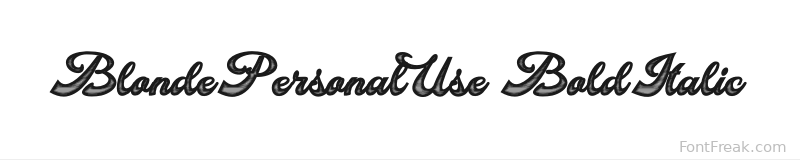
BlondePersonalUse-BoldItalic
The BlondePersonalUse-BoldItalic font by Billy Argel Fonts is a striking decorative typeface that exudes elegance and personality. This script-style font features a bold italic design, characterized by its fluid letterforms and playful strokes. The strokes are thick, providing a noticeable contrast that enhances readability while maintaining an artistic flair. The spacing between the letters is well-balanced, allowing for a harmonious flow that draws attention without overwhelming the viewer.
This font is ideally suited for various creative projects, making it a versatile choice for designers and small business owners alike. It shines in wedding invitations, where its romantic vibe adds a touch of sophistication. Additionally, it works beautifully for movie posters, capturing the essence of cinematic storytelling with its dynamic lines. Restaurant menus can also benefit from the BlondePersonalUse-BoldItalic font, as it can elevate the dining experience through its stylish presentation. Furthermore, content creators will find it perfect for social media graphics, adding an eye-catching element to their posts.
The target audience for this font includes graphic designers looking for unique typefaces, small business owners aiming to create memorable branding, and content creators in search of attention-grabbing typography. Each user will appreciate the font's ability to convey personality and charm in their projects.
What sets the BlondePersonalUse-BoldItalic font apart is its distinctive blend of elegance and boldness. Its artistic design not only enhances visual appeal but also communicates a sense of creativity and style. This makes it a standout choice for anyone seeking to make a lasting impression. For those interested, the BlondePersonalUse-BoldItalic font free download is an excellent opportunity to incorporate this exceptional typeface into their work.